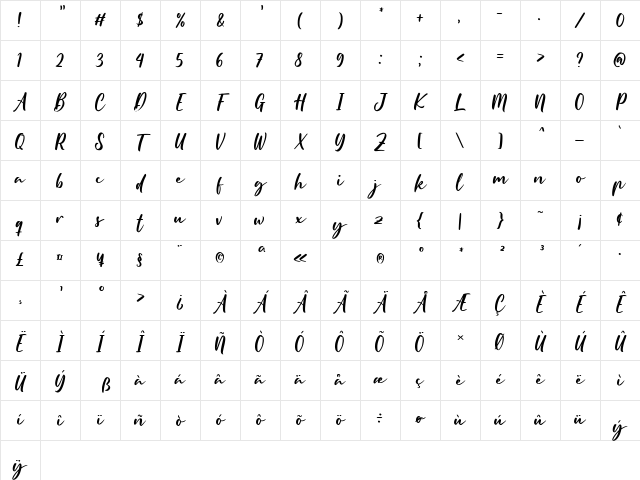
Hoffermond Regular Free Font
Hoffermond Regular
Foundry: Hendra Pratama
Designer: Hendra Pratama
Design Context for Hoffermond
Hoffermond is a composed and adaptable typeface that performs quietly and consistently across a wide range of design contexts.